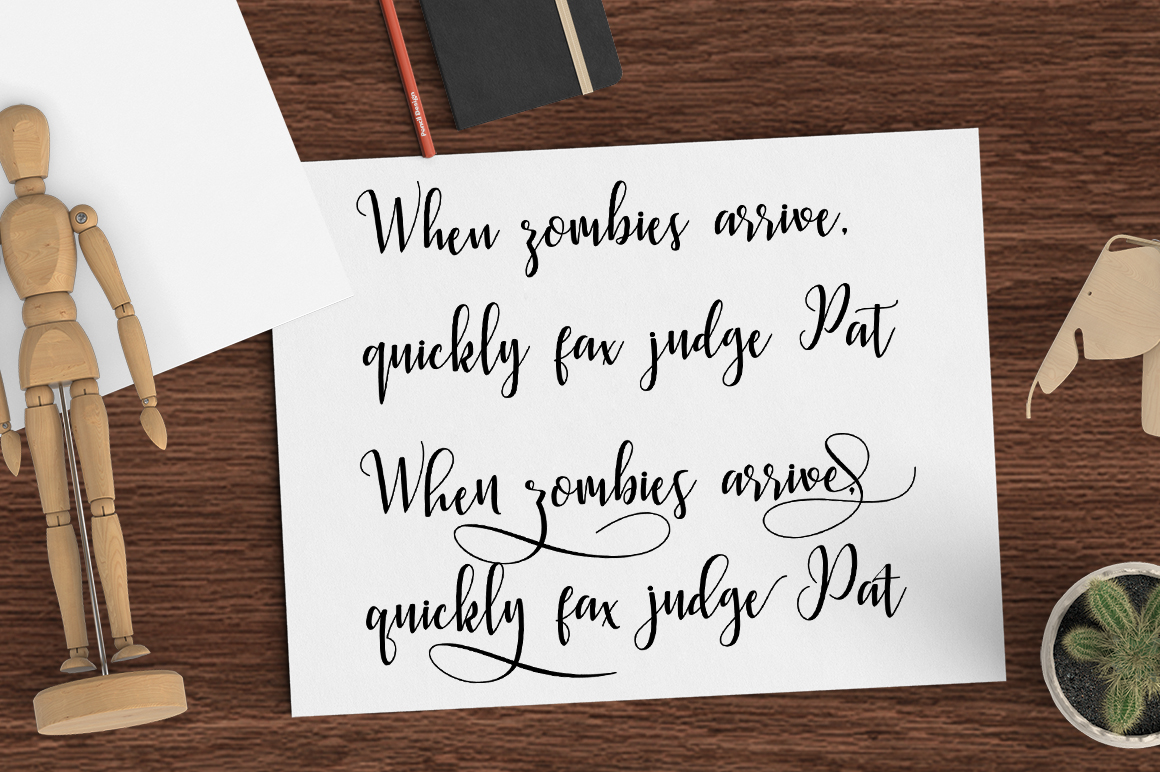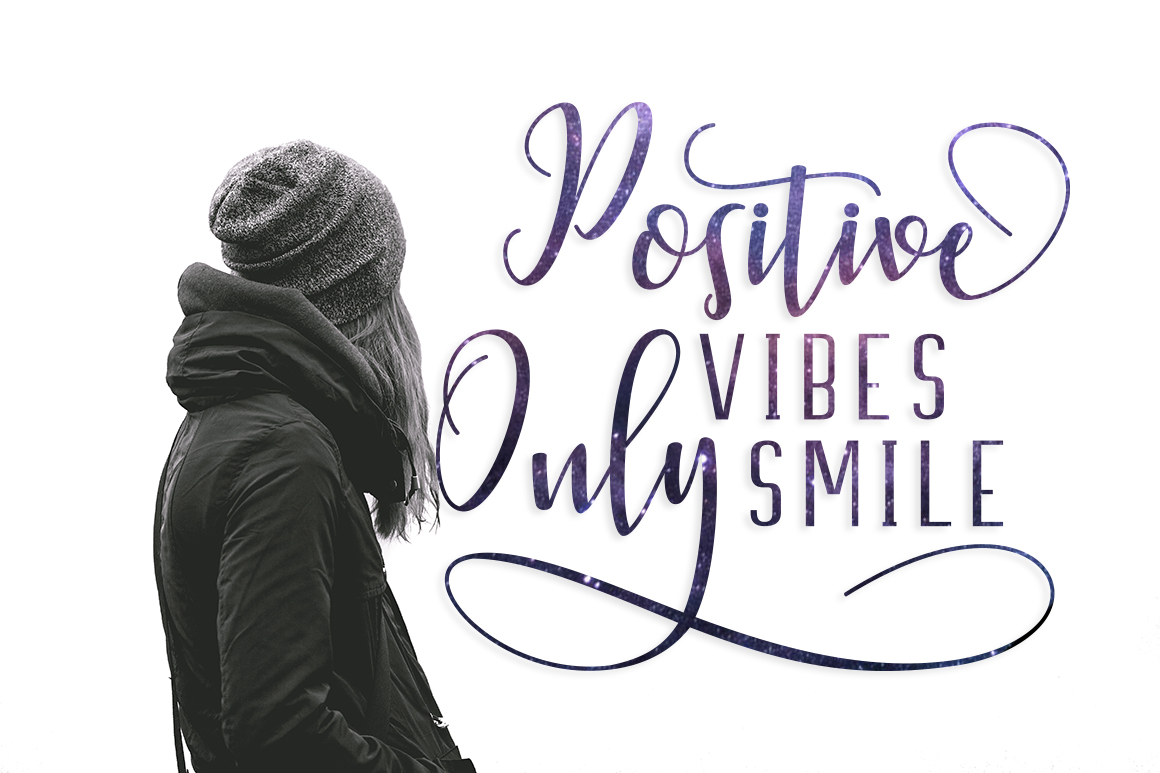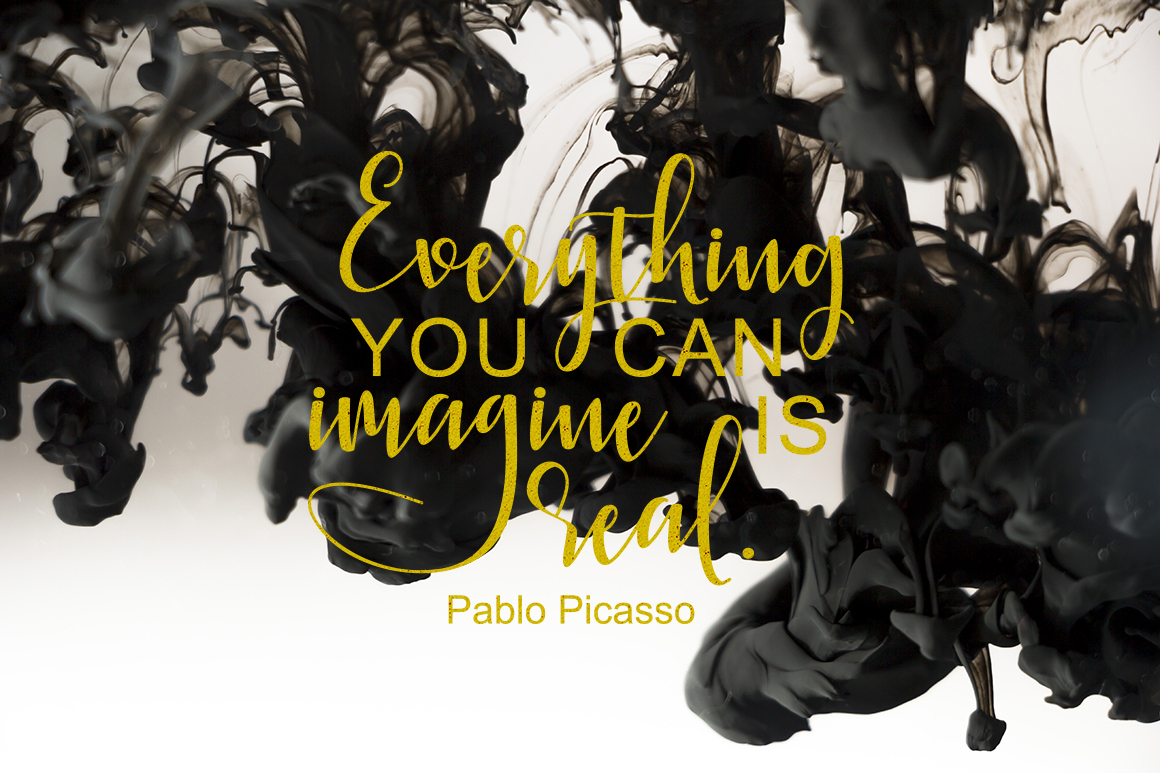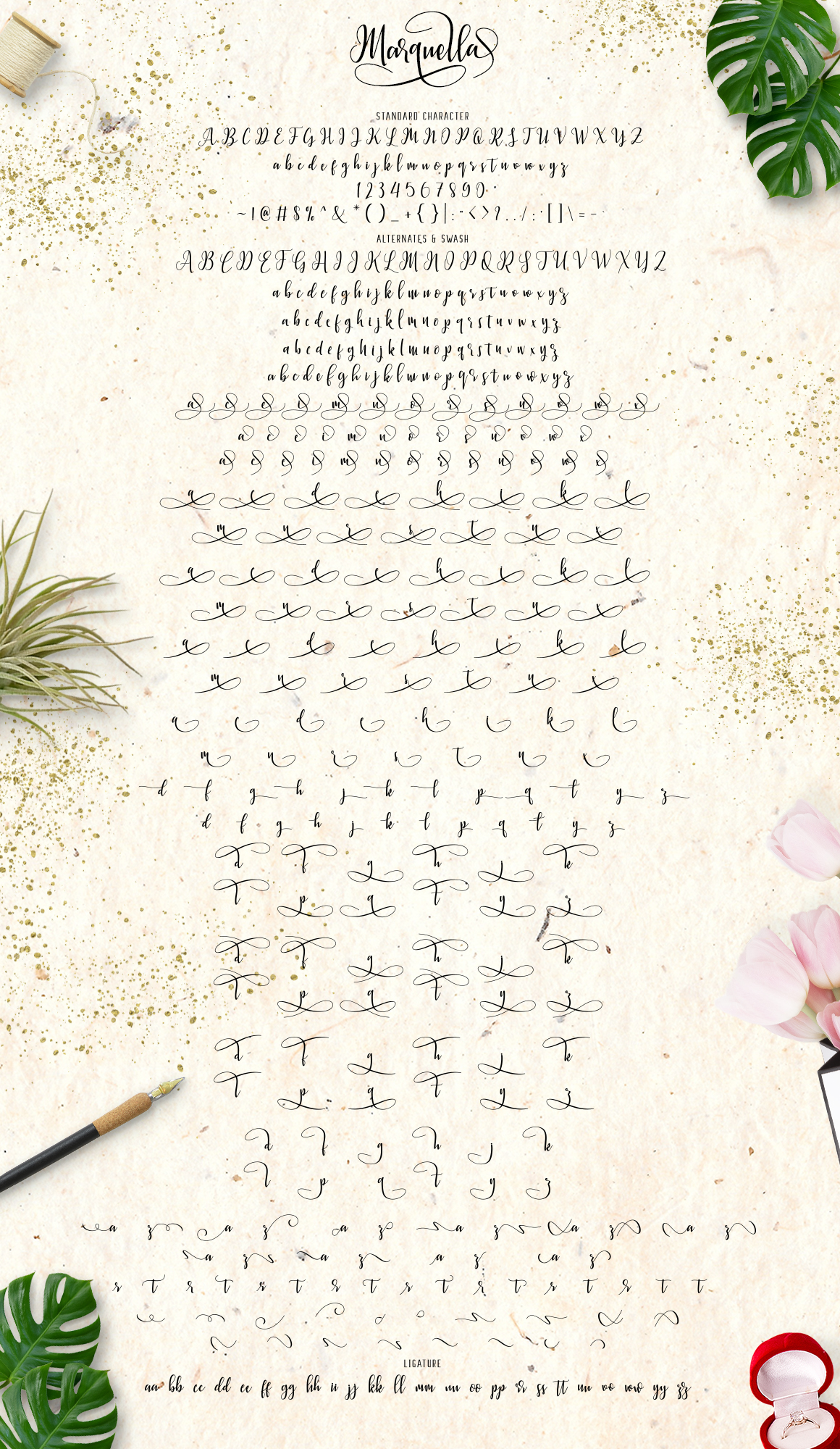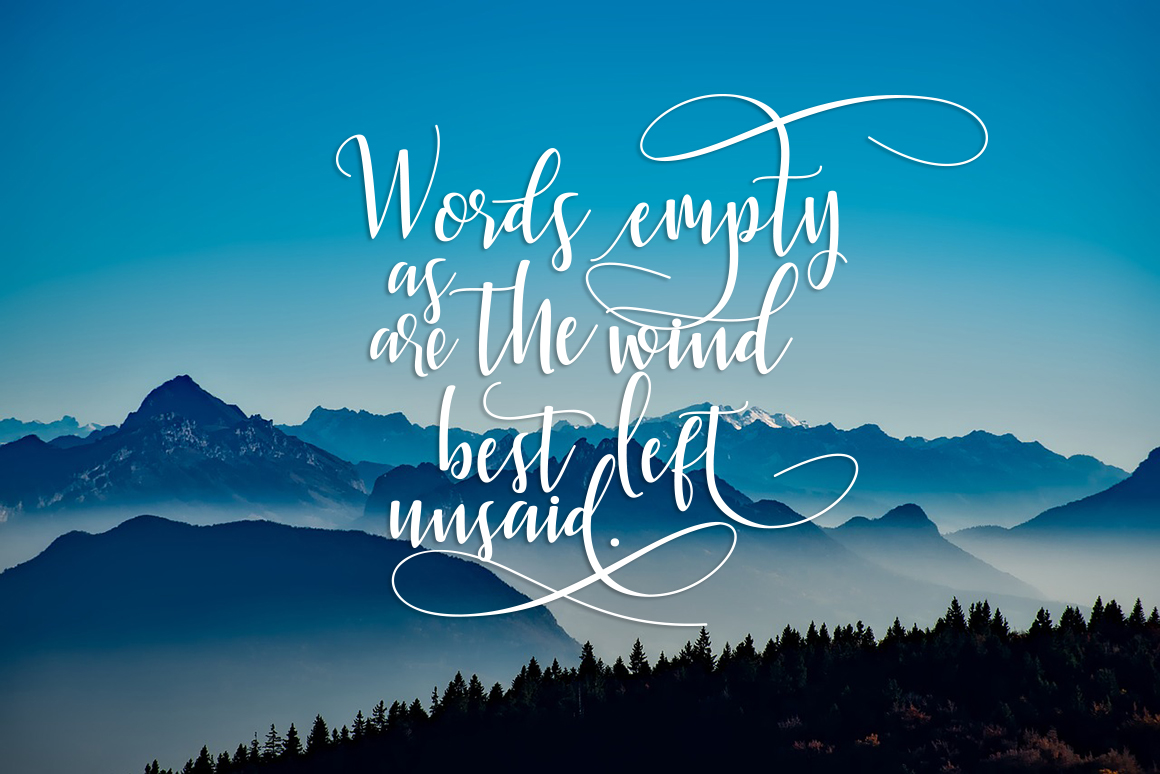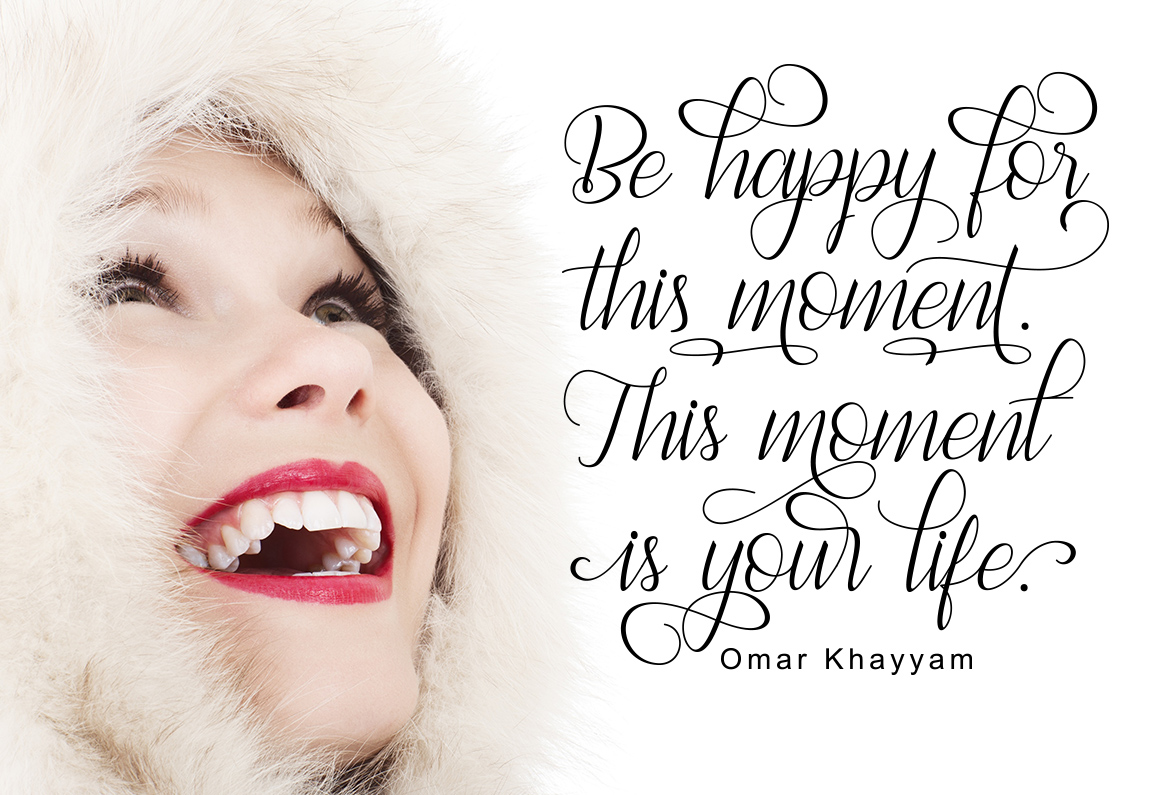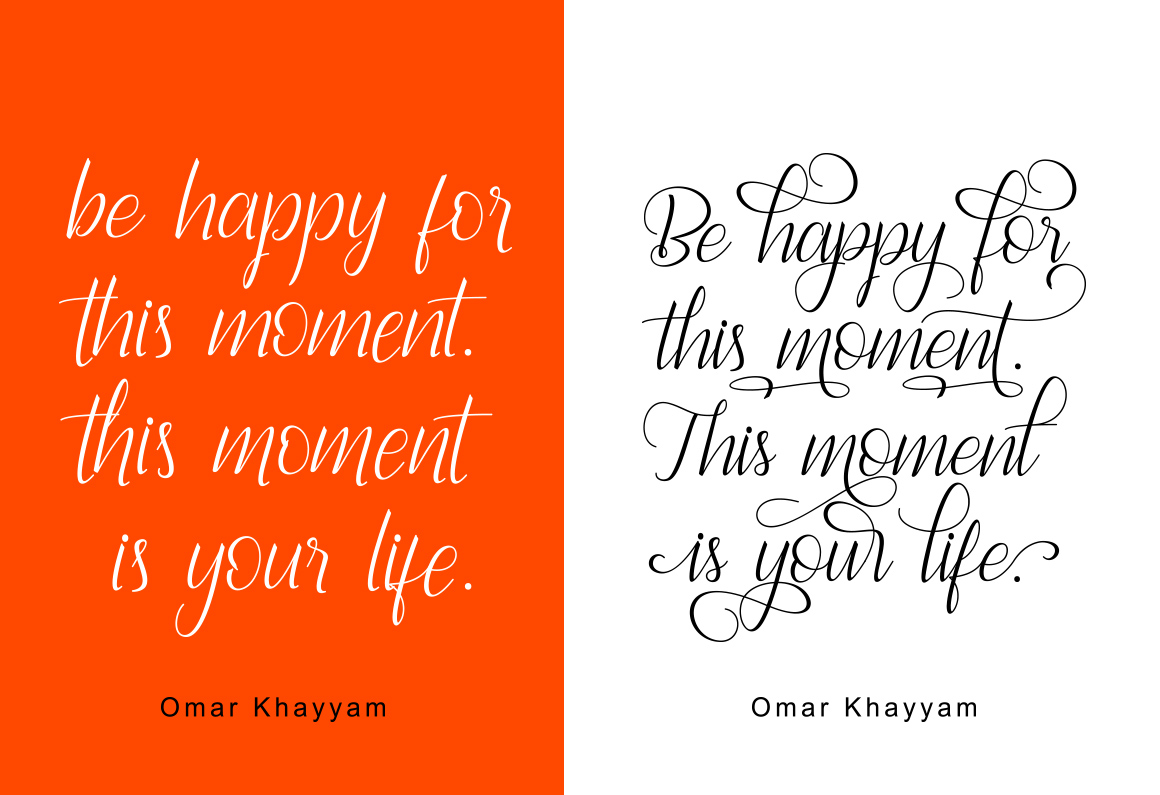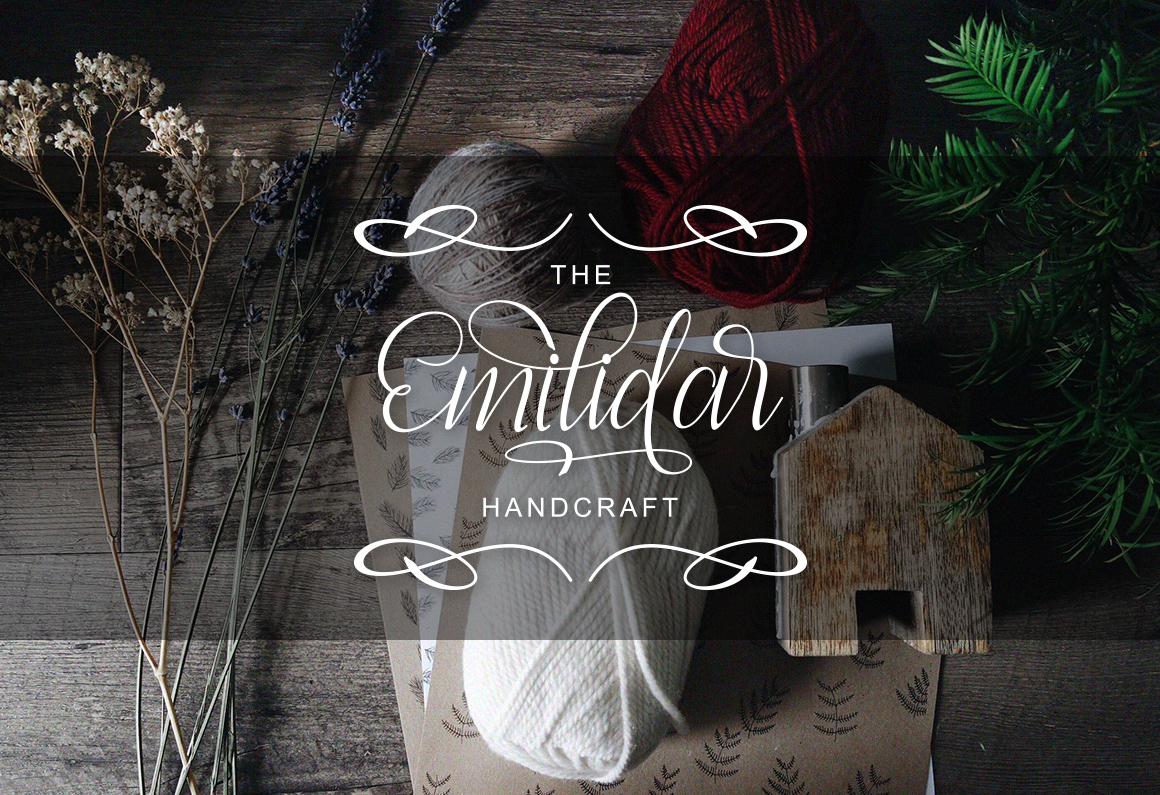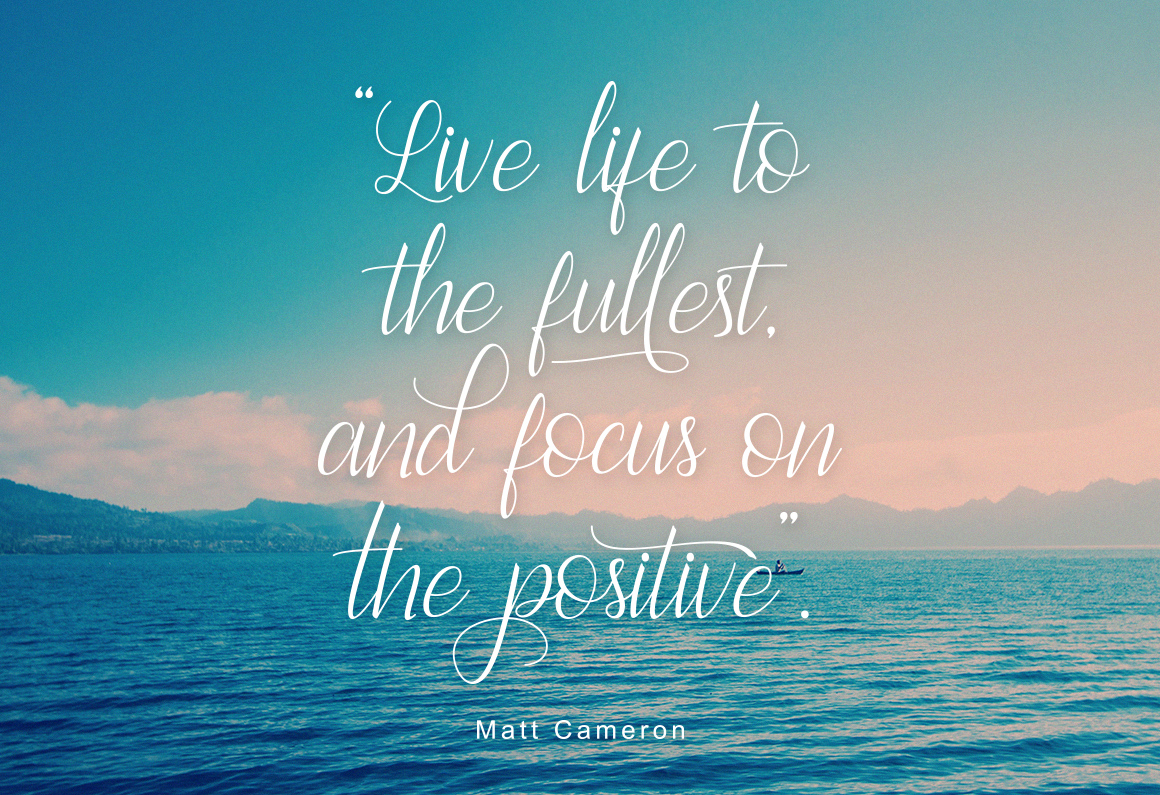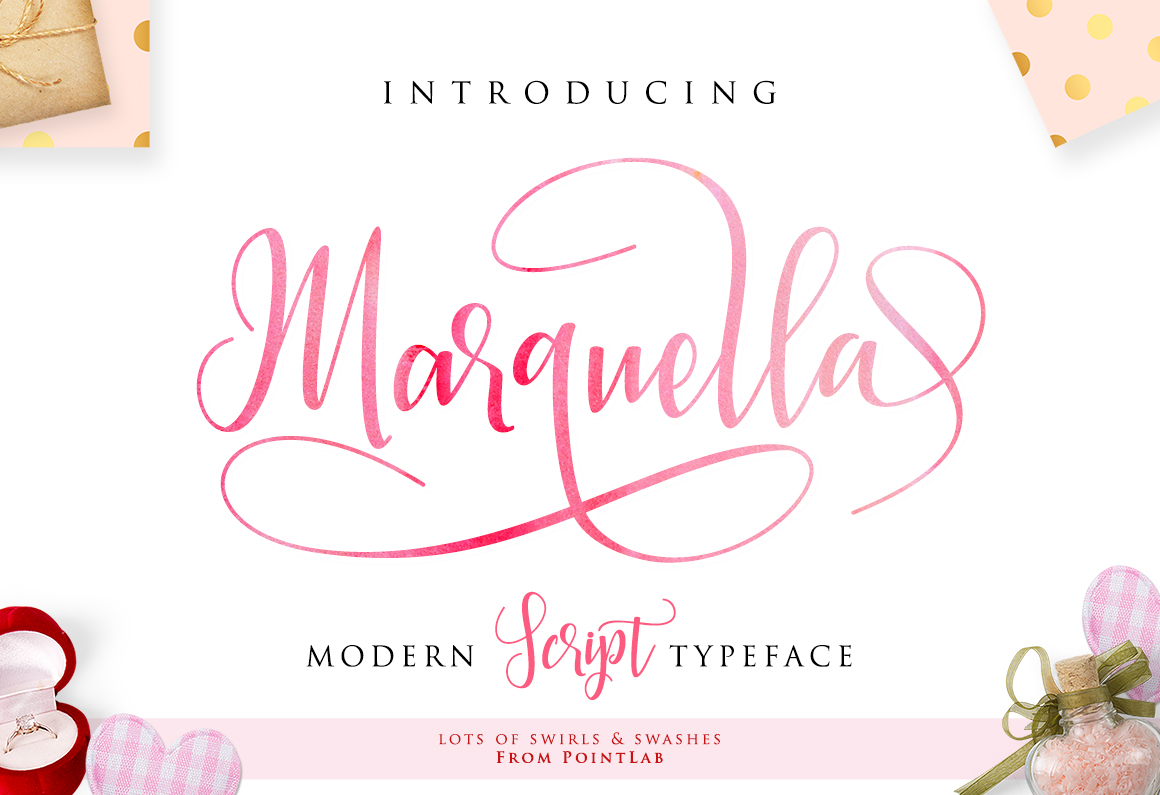
Marquella Font
About Marquella Font
Marquella is a beautiful script font that is a unique blend of both classic and modern typographic sensibilities. With alternate glyphs and beautiful swirls, Marquella is a wonderfully stylish and elegant script.